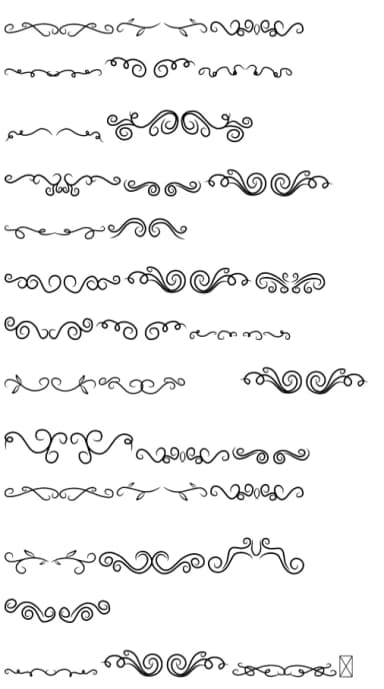
Procreate Divider by CraftedType Studio is a dingbat font of decorative glyphs and ornamental separators designed for structured layouts. If you work with compositions that need visual breathing room, this collection gives you plenty of character options to create natural breaks between sections without relying on text or typography alone. For scrapbooking, the glyphs work as corner elements, horizontal dividers, and framing devices that help organize photo clusters, timeline spreads, and visual storytelling on a page. Journal spreads and planner layouts benefit from these ornaments too, since they provide actual structural function rather than pure decoration.
Beyond those uses, the font works cleanly for greeting card details, sticker designs, and DIY craft labels where a small ornamental touch makes the difference between basic and polished. Because it's built for Procreate, these glyphs integrate smoothly into digital art workflows, layering easily over illustrations and photo composites without strain. You can apply consistent visual language across your projects without the elements feeling worn out or repetitive.
Procreate Divider Font is a versatile dingbats font that works for both headings and body text. Pair it with a contrasting sans-serif or serif font to add visual interest and a clear distinction between titles and body copy.